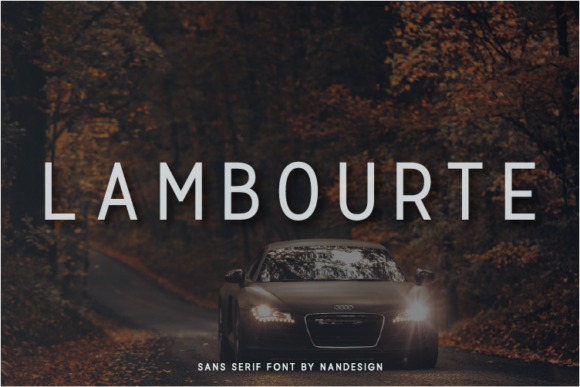
Introducing Lambourte Font: The Epitome of Clean, Modern Typography
In a world saturated with visual clutter, simplicity reigns supreme. Lambourte Font, a sans serif masterpiece crafted by Nan Design, embodies this philosophy with its unadorned elegance and unwavering legibility. This font is more than just a collection of characters; it's an invitation to experience the beauty of minimalism in digital form.
Lambourte's clean lines and open counters create a sense of visual harmony that draws the reader's eye effortlessly across the page. Its carefully balanced proportions and generous x-height ensure readability even at small sizes, making it an ideal choice for both print and digital applications. Whether you're crafting a sleek logo, designing a user-friendly website, or creating eye-catching social media graphics, Lambourte will elevate your work with its understated sophistication.
But Lambourte's appeal extends far beyond its aesthetic qualities. It's a font that speaks to the modern, minimalist sensibility, a font that understands the power of simplicity. In an era defined by information overload, Lambourte offers a refreshing respite, a chance to communicate with clarity and impact.
Imagine the allure of a website that welcomes visitors with Lambourte's clean, uncluttered typography, guiding them through its pages with effortless grace. Envision a social media post that cuts through the noise with Lambourte's bold, distinctive lettering, capturing attention and sparking engagement. Picture a logo that stands out from the crowd with Lambourte's timeless elegance, embodying the essence of your brand with unwavering confidence.
Lambourte is not just a font; it's a statement. It's a declaration of your commitment to clarity, simplicity, and timeless design. It's an investment in your brand's future, a foundation upon which you can build a legacy of visual excellence.